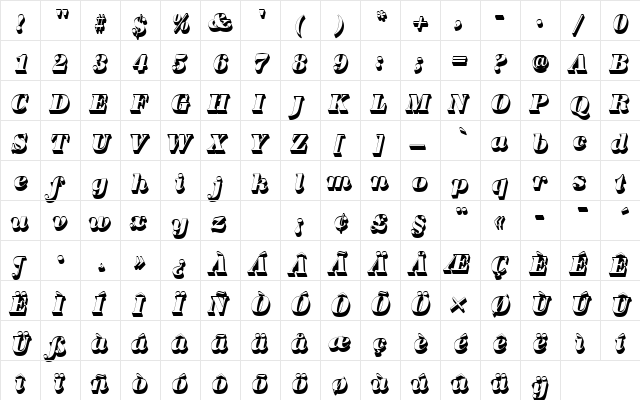
URWAntiquaTUltBolItaSh1 Regular
Design Context for URWAntiquaTUltBolItaSh1 Typeface
URWAntiquaTUltBolItaSh1 takes a measured approach to typography — its balanced proportions and neutral character make it a reliable workhorse for both digital and print work.